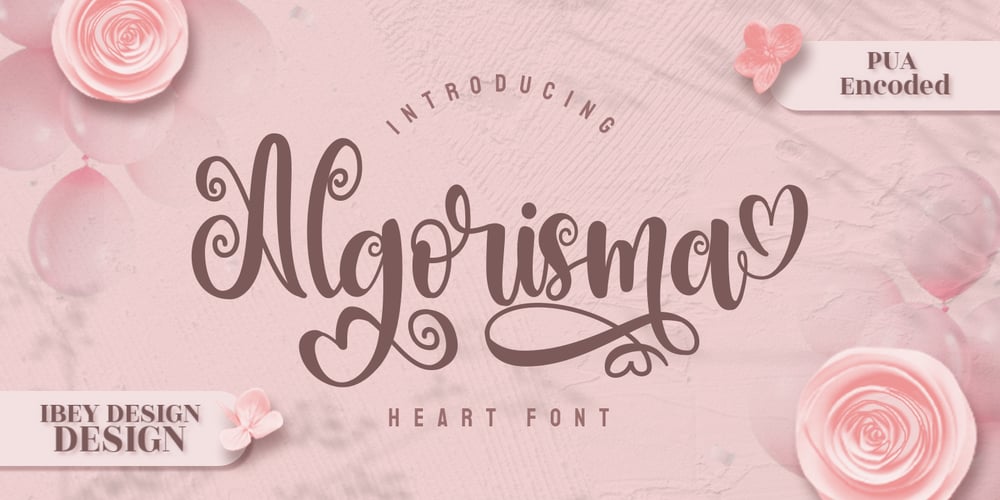
Algorisma Heart Font
Algorisma Heart Font Font Family was designed by Ikrar Bey Khubaib and published by IbeyDesign. Algorisma Heart Font contains 1 styles and family package options. Algorisma Heart Font inspires friendliness and elegance. It is perfect to use for any of your wonderful creations such as branding projects, logos, brochures, business cards, wedding invitations, and many others.